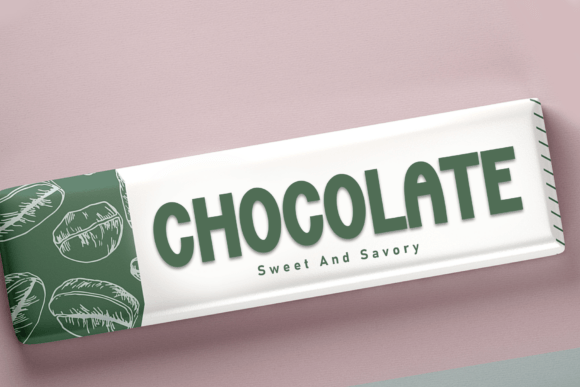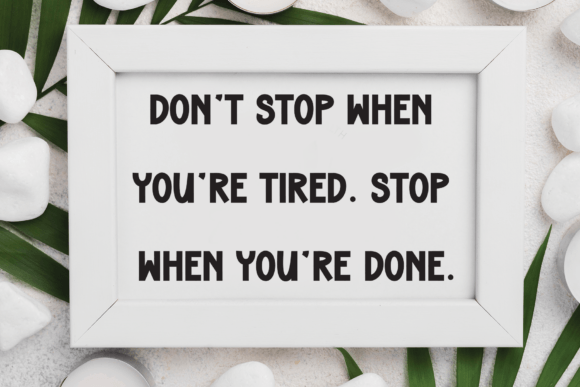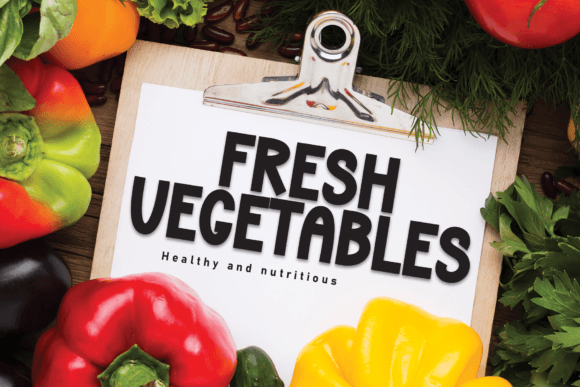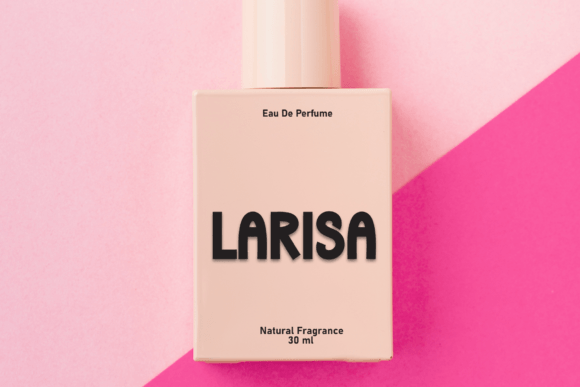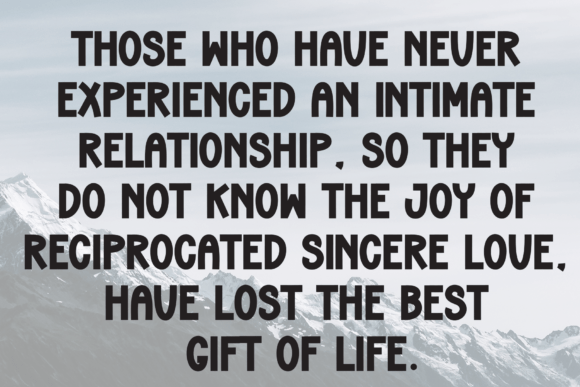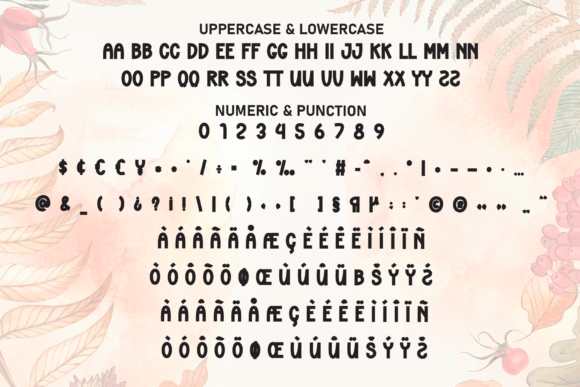
Cozy Up with Boho Autumn Font: A Designer’s New Best Friend
I’ll never forget the design project that led me to discover Boho Autumn Font. I was working on a fall-themed invitation for a friend’s harvest party, and I was struggling to find the perfect font. The design needed to be warm, inviting, and playful, but everything I tried felt either too generic or too over-the-top. That’s when I stumbled upon Boho Autumn, and it was love at first sight! ✨
A First Impression: What I Love About Boho Autumn
Boho Autumn is a handmade display font that embodies the cozy, rustic feel of autumn. Here are a few things that immediately won me over:
- ✅ Unique, hand-crafted letters that give off a warm and casual vibe
- ✨ Playful, natural style that’s perfect for fall-themed designs
- ✅ Great for invitations, posters, or seasonal crafts
- ✅ Easy to read, even at larger sizes
A Few Quirks to Keep in Mind
While Boho Autumn is an amazing font, it’s not without its quirks. Here are a few things to keep in mind:
- ⚠️ Some letters may appear a bit irregular or imperfect, which can be charming but also tricky to work with
- 🤔 Limited kerning options, which can make it a bit tricky to use in certain design situations
- Experiment with OpenType features, like ligatures and stylistic alternates, to add some extra flair to your design
The Story Behind Boho Autumn
Boho Autumn was designed by a talented font designer who wanted to capture the warm, cozy feeling of autumn in a font. With inspiration from traditional handwriting and lettering, Boho Autumn is the perfect blend of rustic charm and modern style.
| Q: What is Boho Autumn? | A: Boho Autumn is a handmade display font with a cozy, rustic feel. |
| Q: What can I use Boho Autumn for? | A: Boho Autumn is perfect for fall-themed designs, invitations, posters, and seasonal crafts. |
| Q: Is Boho Autumn easy to read? | A: Yes, Boho Autumn is easy to read, even at larger sizes. |
Overall, Boho Autumn is a unique and charming font that’s perfect for designers, crafters, and creative hobbyists. With its cozy, rustic feel and playful, natural style, it’s sure to become a favorite in your design arsenal! 💕